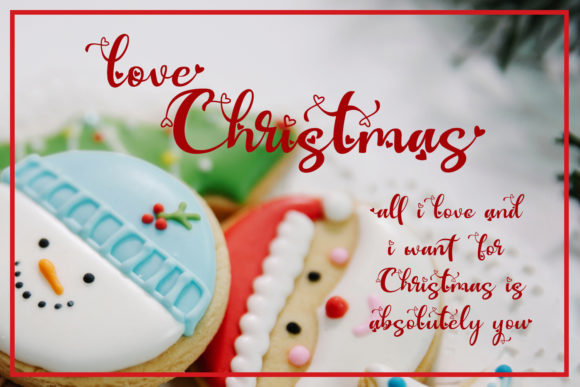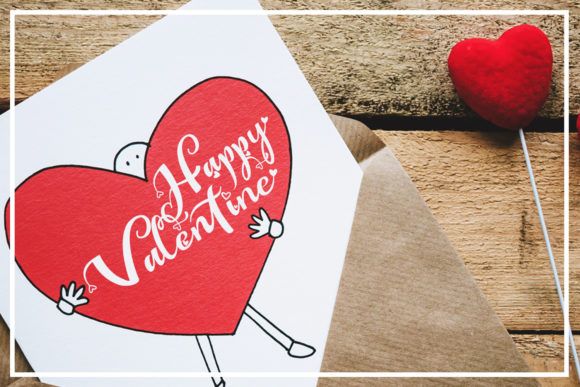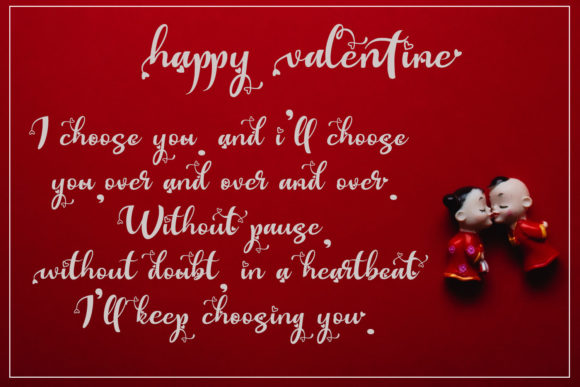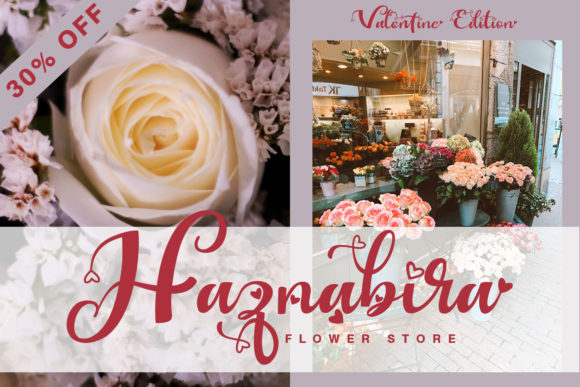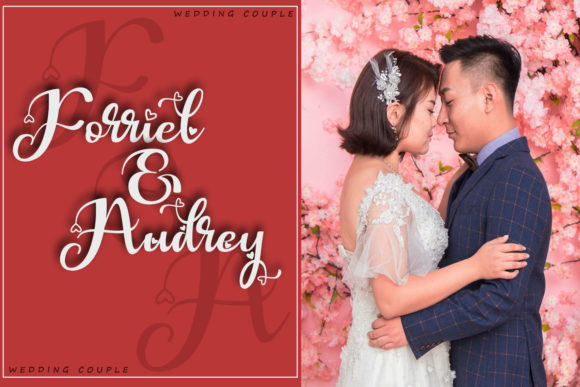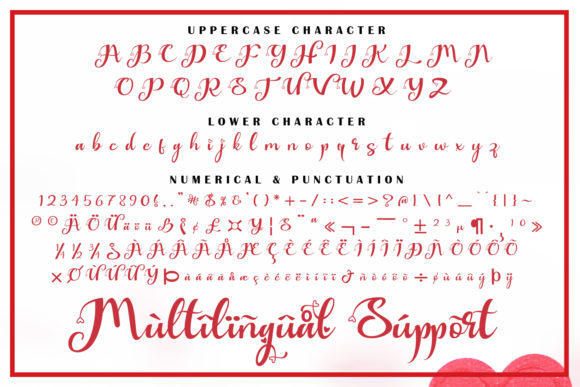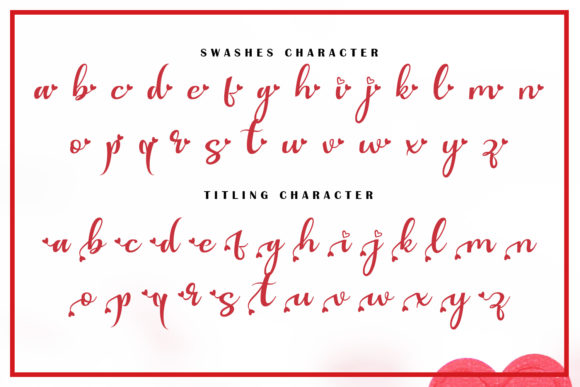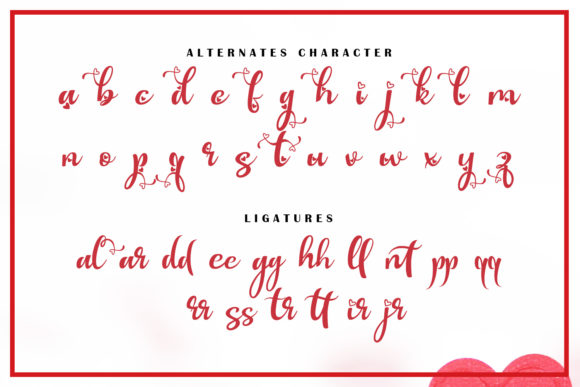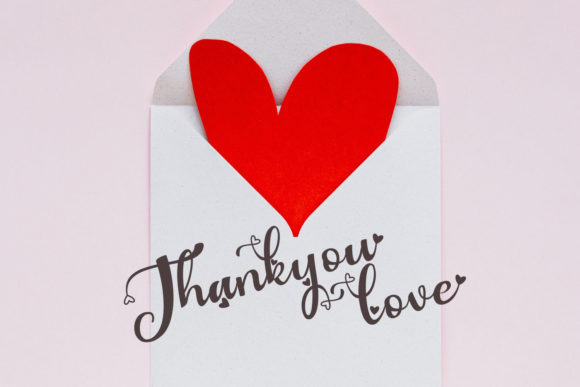
Valentine Fantasy Font
About Valentine Fantasy Font
Valentine Fantasy is a unique and classy handwritten font. It will add a romantic touch to your designs. Use it for Valentine’s cards, Christmas cards, greeting cards, stationery, branding and more! This font is PUA encoded which means you can access all of the glyphs and swashes with ease!